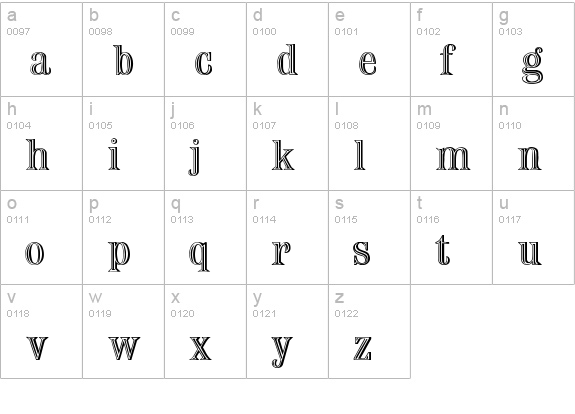
Nauert Medium is a balanced, medium-weight variant in the Nauert typeface family \xE2\x80\x94 well suited to sub-headlines, navigation, and balanced editorial work.
Nauert Medium font effortlessly combines elegance with modernity, making it a versatile choice for a wide range of design projects. With its clean lines and balanced proportions, this font exudes sophistication and professionalism. The medium weight strikes the perfect balance between bold and delicate, making it ideal for both headlines and body text. What sets Nauert Medium font apart is that it is not only visually appealing, but also freely available to download at FontsMarket.com. This means that you can elevate your designs without any additional cost, making it a valuable resource for designers and creatives alike. Whether you're working on a branding project, a website design, or a print layout, Nauert Medium font is sure to enhance your work with its timeless style and versatility. Download it today and see how it can take your designs to the next level.